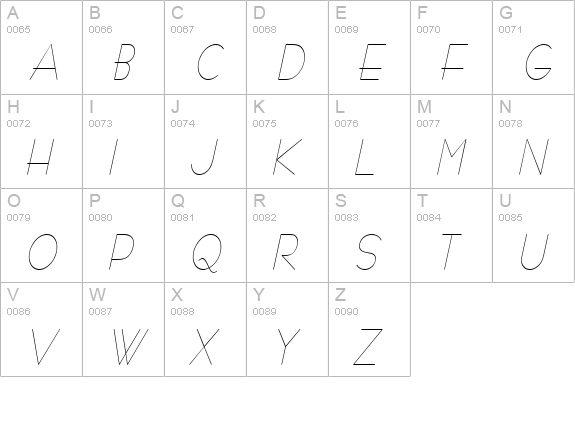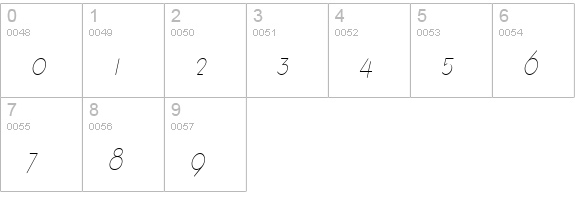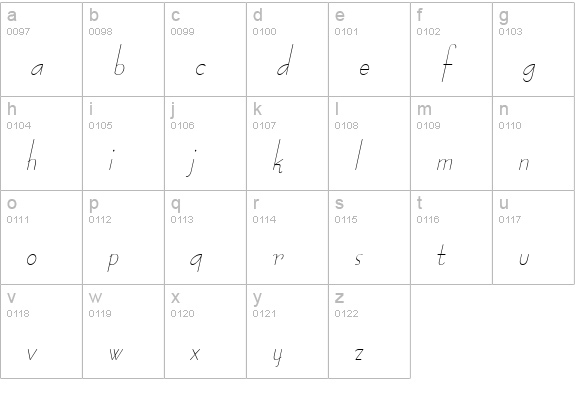
Bernie Condensed Italic is a distinctive, condensed-width, italic variant in the Bernie typeface family \xE2\x80\x94 well suited to design and typography projects.
Bernie Condensed Italic font offers a harmonious blend of modernity and elegance, perfect for adding a touch of sophistication to your designs. Its sleek and stylish italicized form exudes a sense of refinement and creativity, making it ideal for a wide range of projects. The condensed design adds a unique flair to any text, ensuring that your message stands out with a distinctive look. What sets Bernie Condensed Italic font apart is not only its aesthetic appeal but also its versatility. Whether you're working on branding, editorial design, or digital content, this font will elevate your work to new heights. The italicized slant adds a dynamic touch to the text, creating a sense of movement and flow that captures the eye. Best of all, Bernie Condensed Italic font is available for free download at FontsMarket.com. This means you can easily access this high-quality font without breaking the bank, making it an excellent choice for designers on a budget. Don't miss out on the opportunity to enhance your designs with the timeless appeal of Bernie Condensed Italic font - download it today and see the difference it can make!